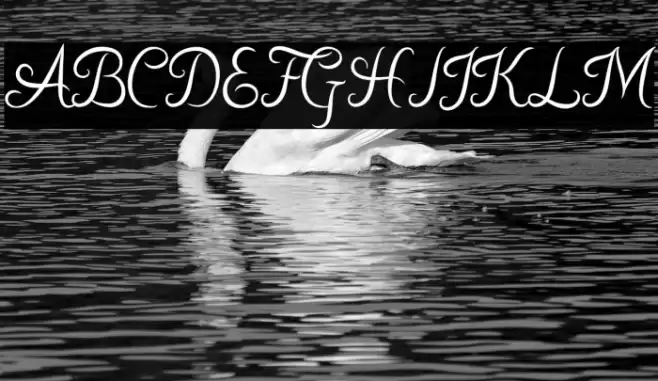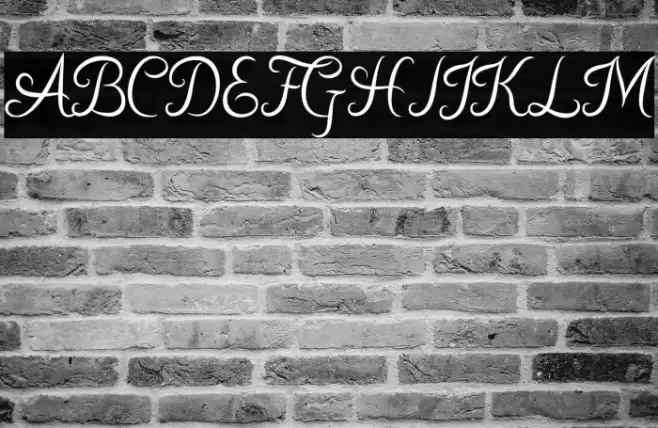
Kurnia Font
Kurnia Description
This font features an elegant and flowing script style, characterized by its smooth, cursive strokes and graceful curves. The uppercase letters exhibit a sophisticated flair with extended loops and swashes, while the lowercase letters maintain a consistent, fluid motion. The overall appearance is both refined and artistic, making it suitable for formal and decorative purposes. The font's design emphasizes a harmonious balance between the characters, providing a visually pleasing and cohesive look. Its artistic nature lends itself well to projects that require a touch of elegance and creativity.
An elegant and flowing script font with graceful curves and cursive strokes from Uncategorized fonts.
- Proposed Projects: Ideal for wedding invitations, greeting cards, branding, and elegant logos.
- Overall Style: Elegant, Artistic
- Use Case: Logos, Invitations, Decorative Text